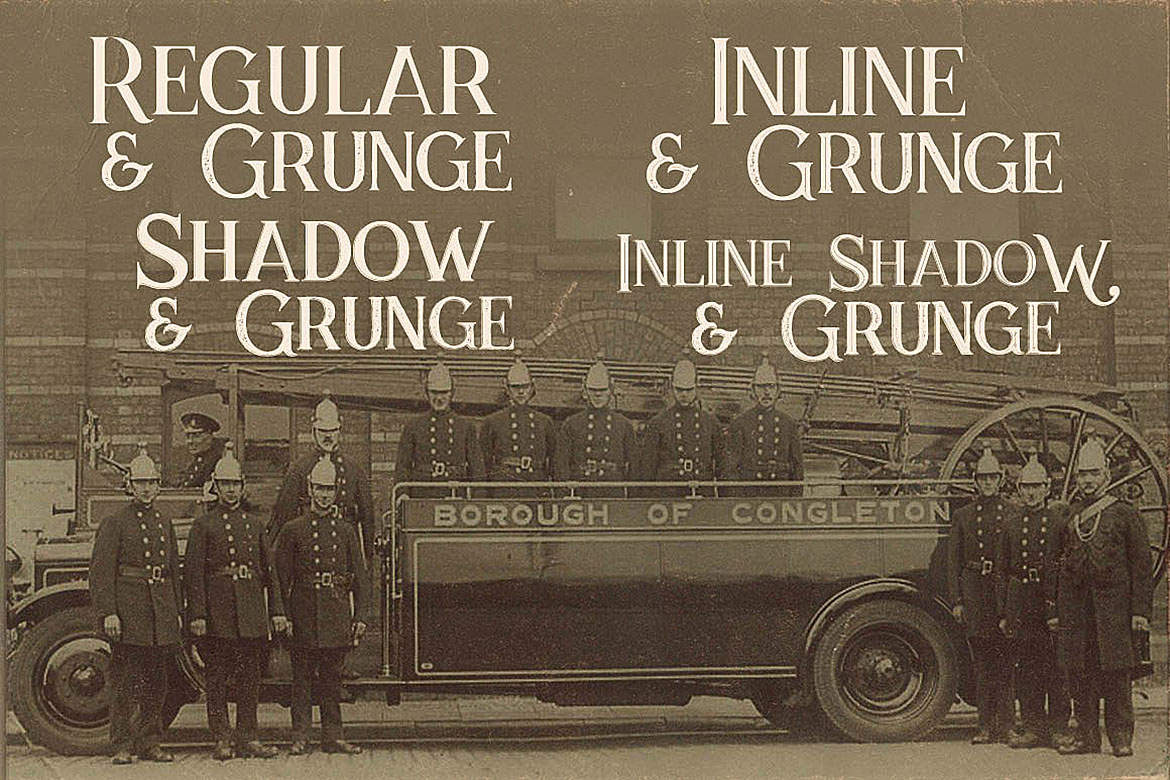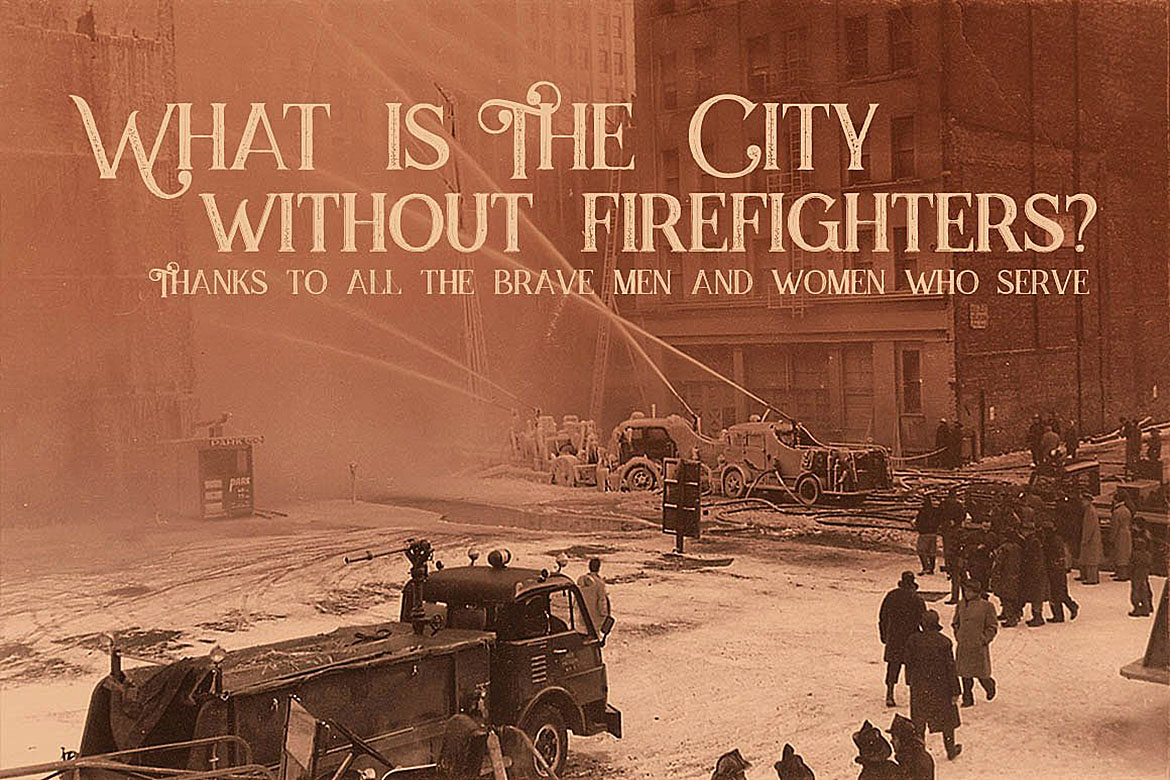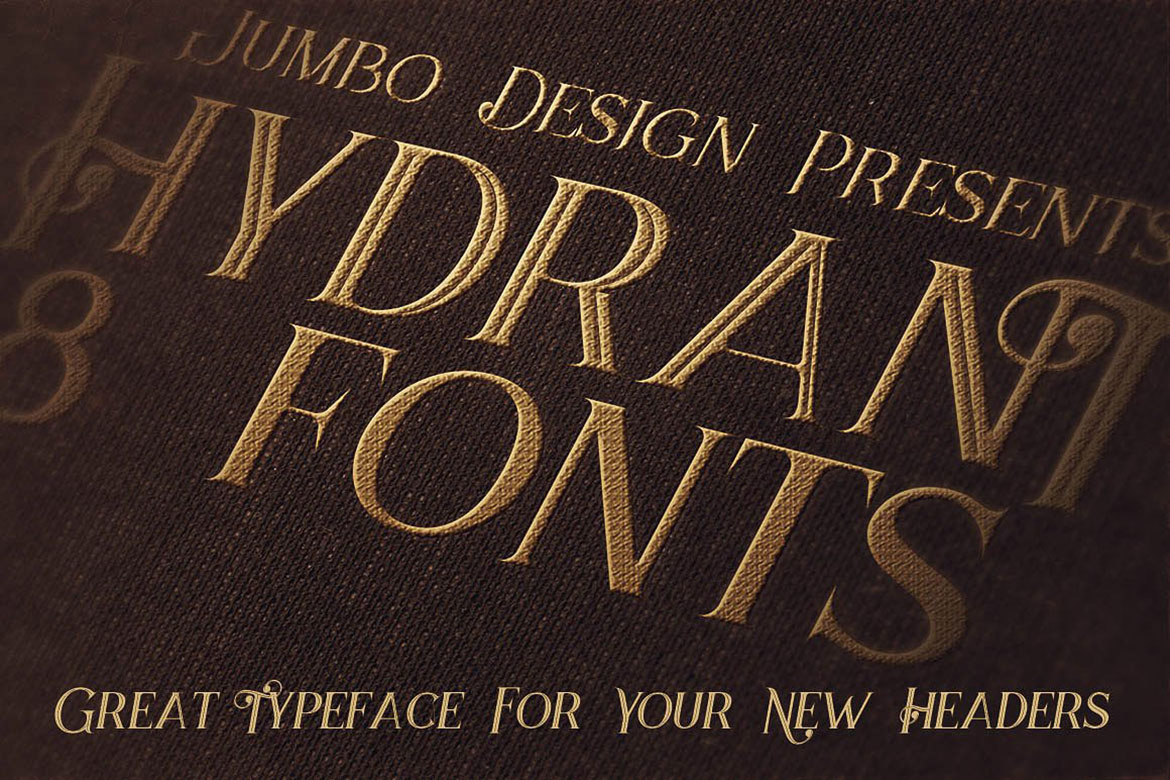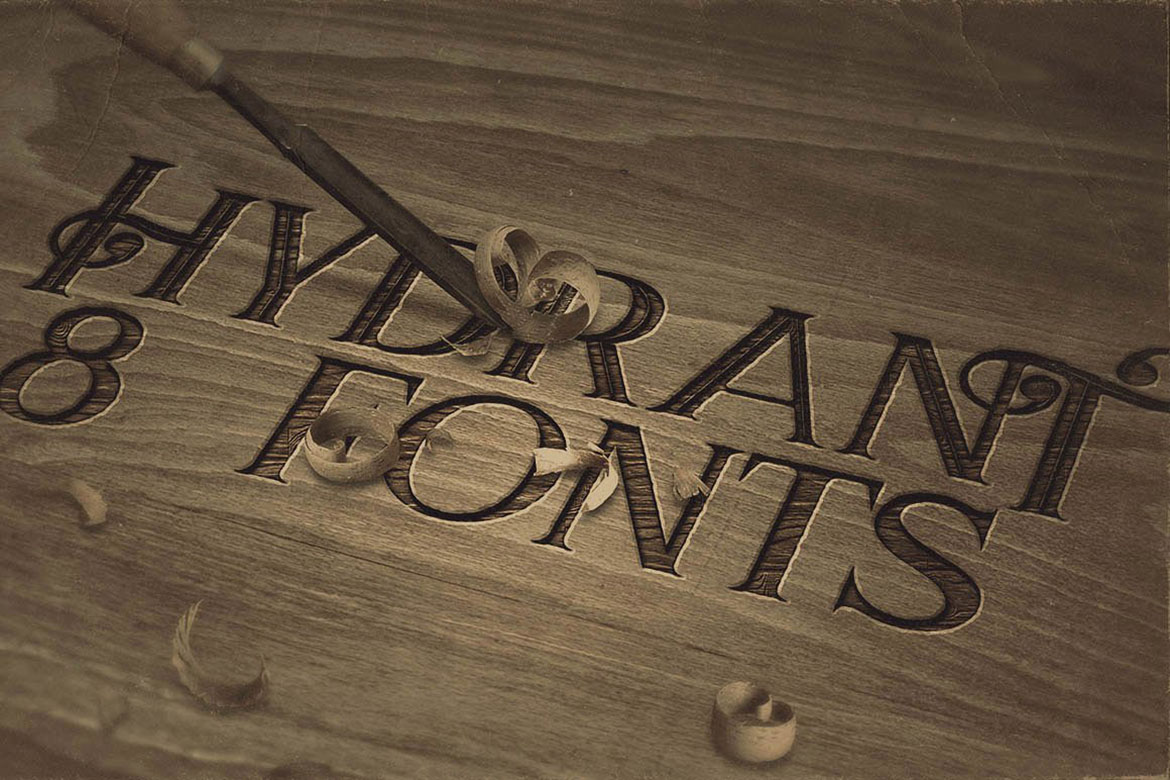
Introduction to Hydrant Font
Hydrant is a beautiful vintage style typeface whose forte is legibility and style.
With various style options, Hydrant can be used in a large number of projects .
Key Features of Hydrant Font
Why Choose Hydrant Font?